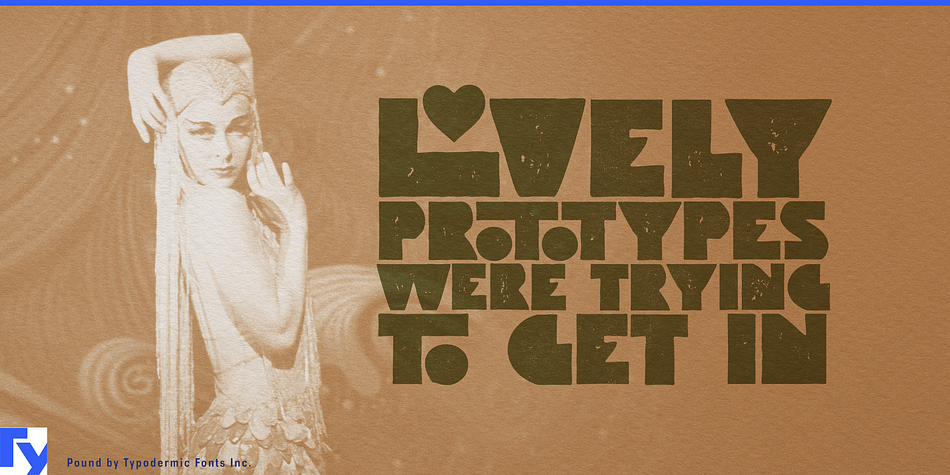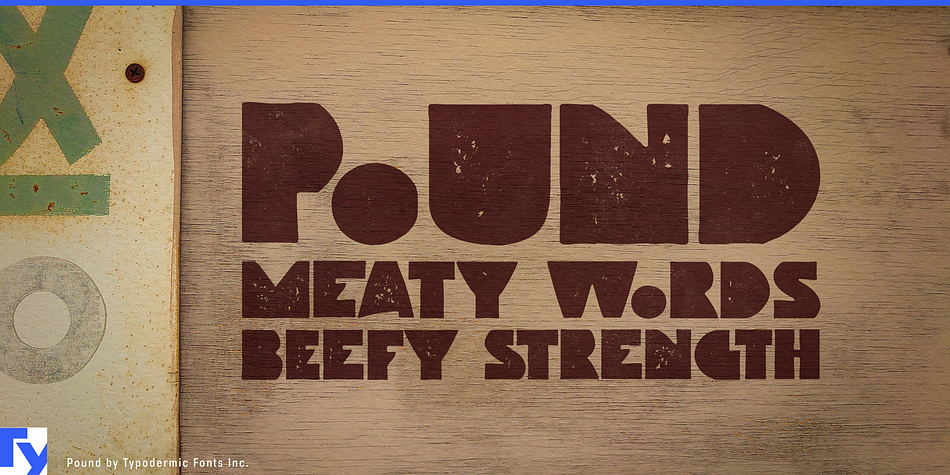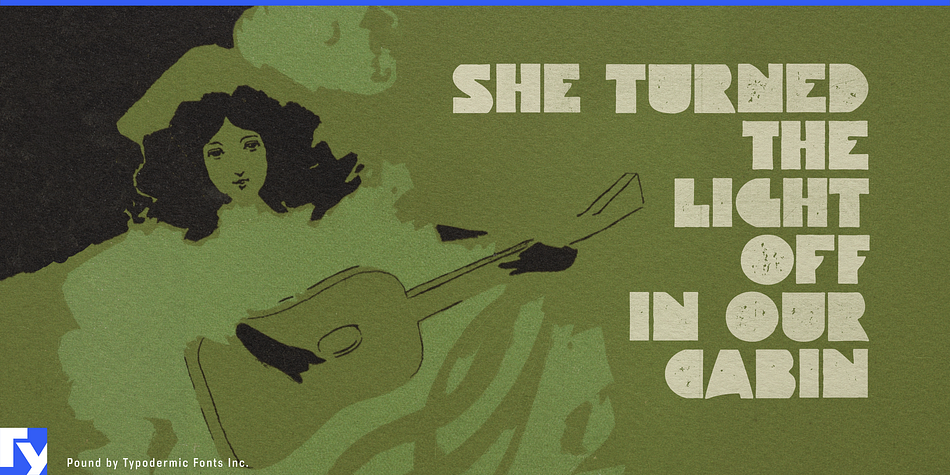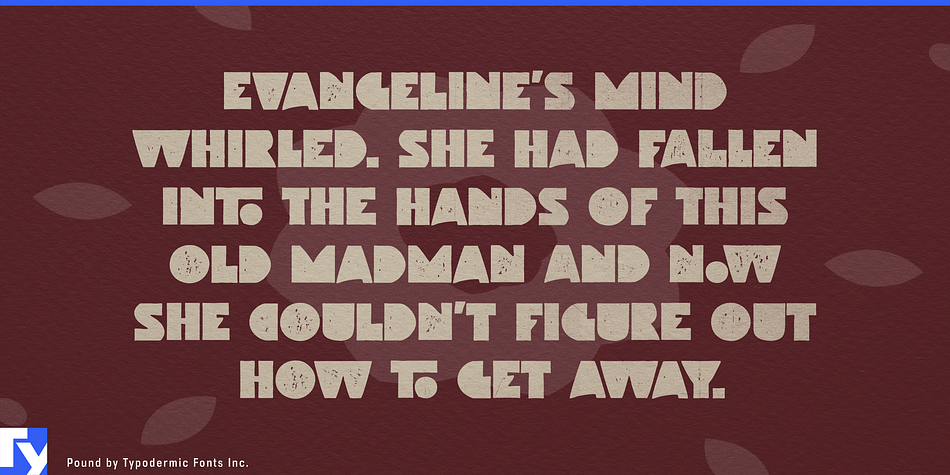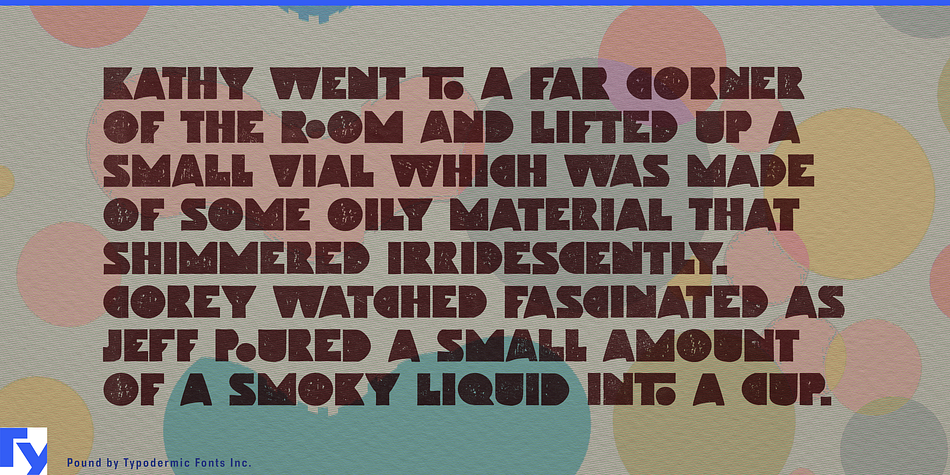
Pound is a display and grunge font family. This typeface has two styles and was published by Typodermic Fonts Inc.
Pound out meaty words with beefy strength. In OpenType savvy applications, letter pair autoligs help break up the monotony of obviously repeating letters.